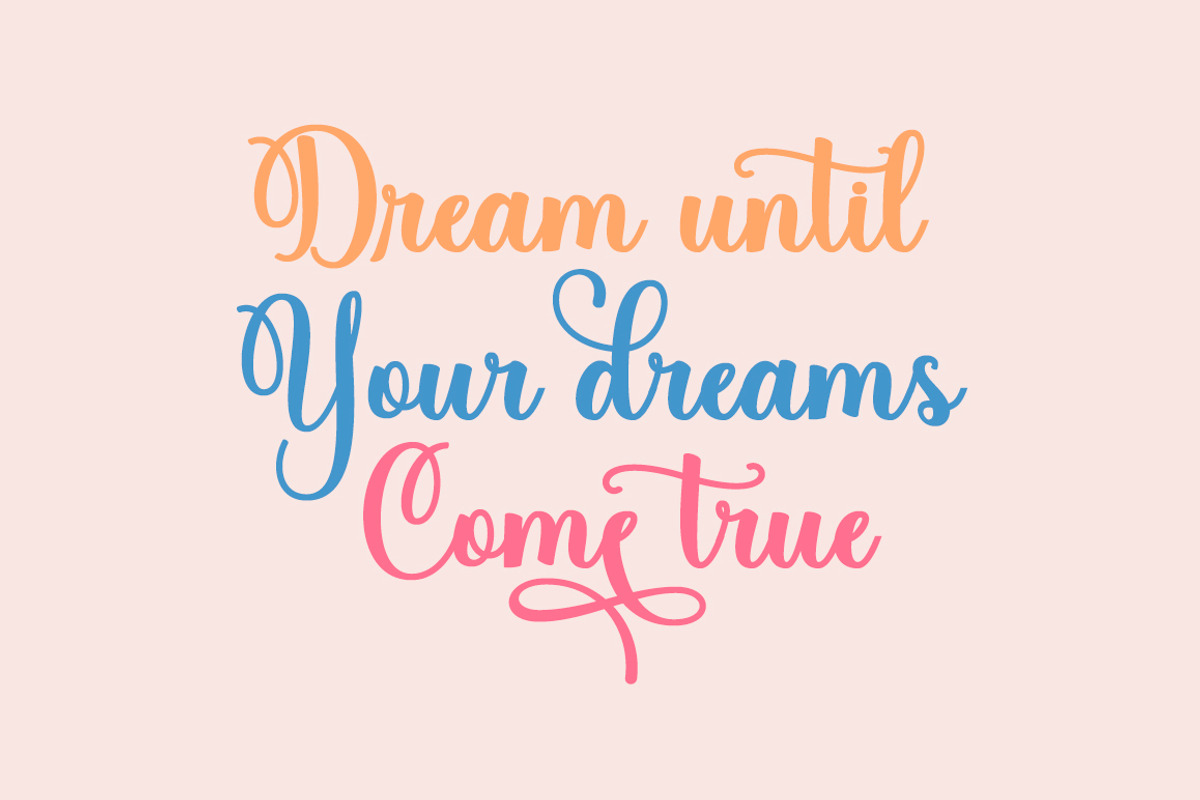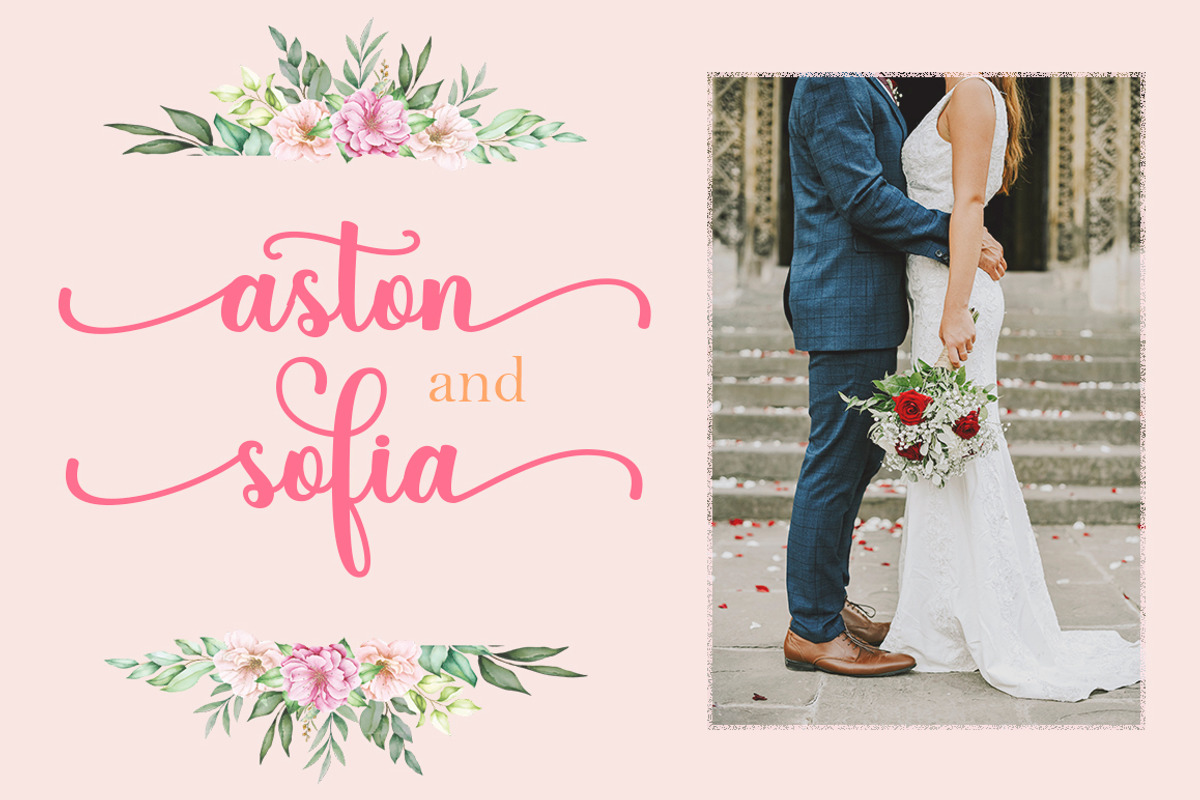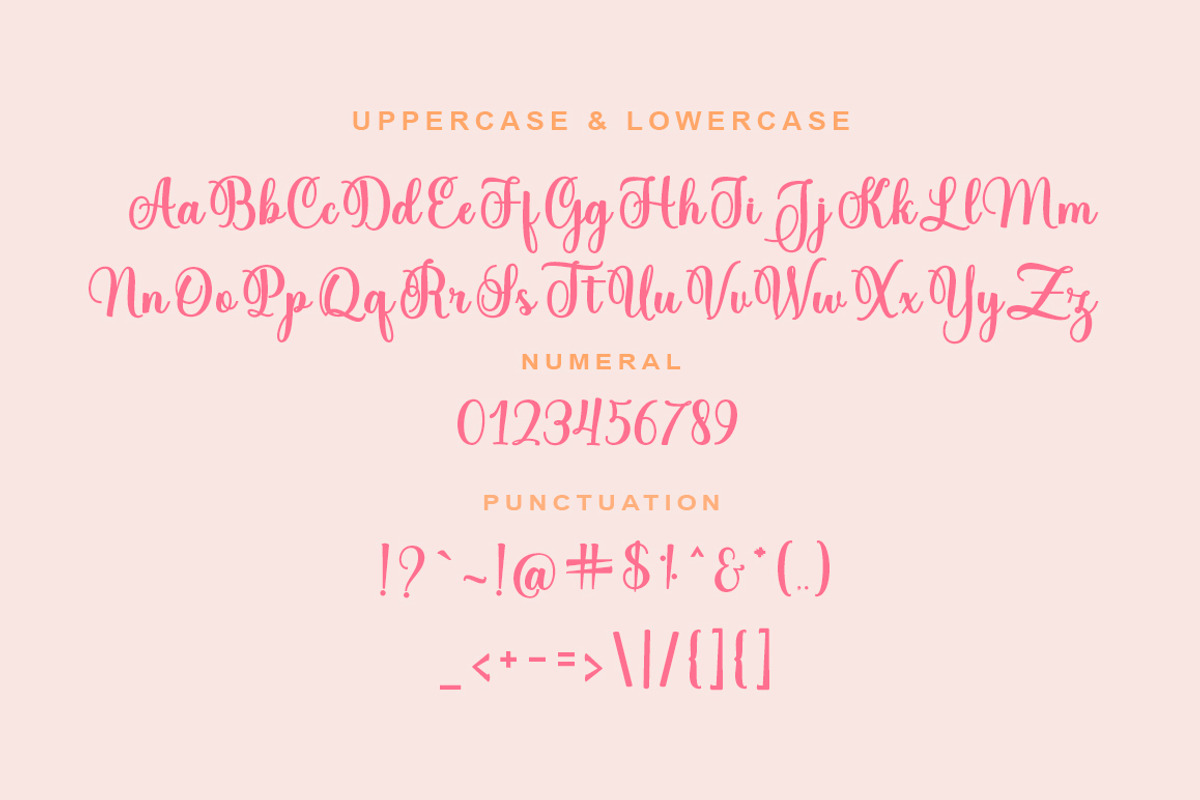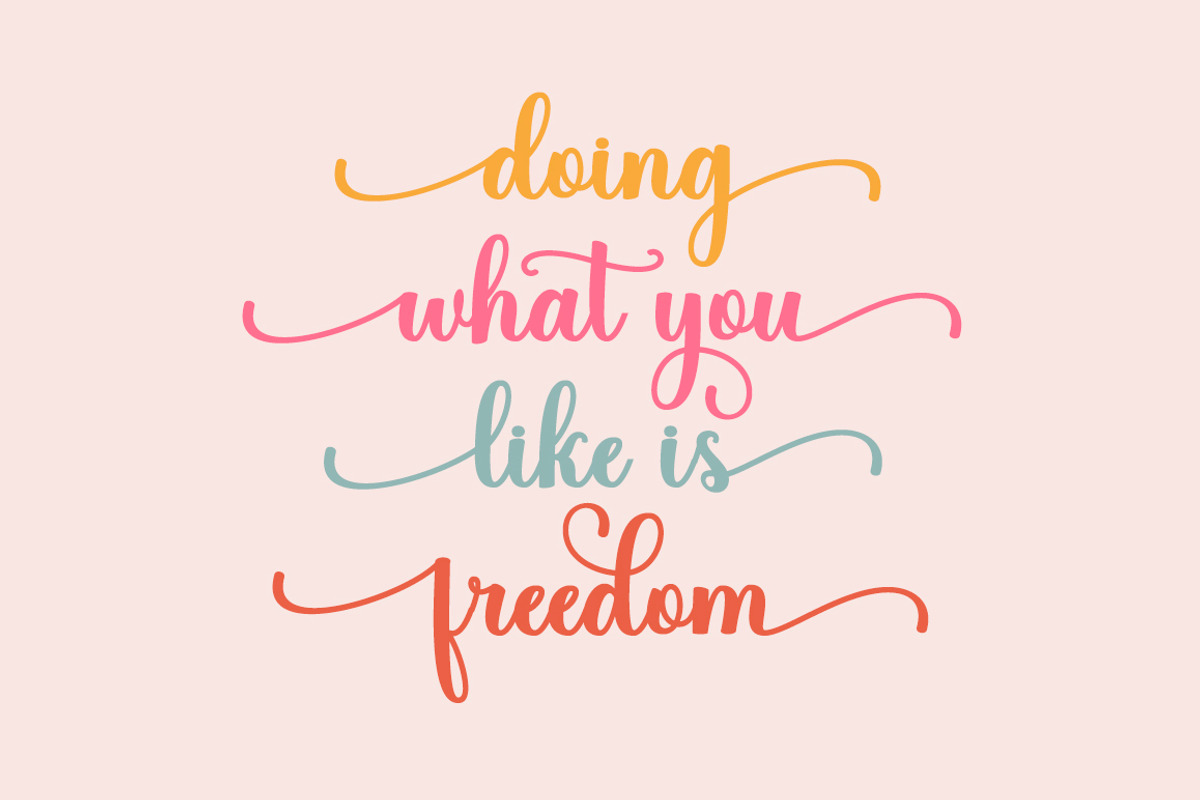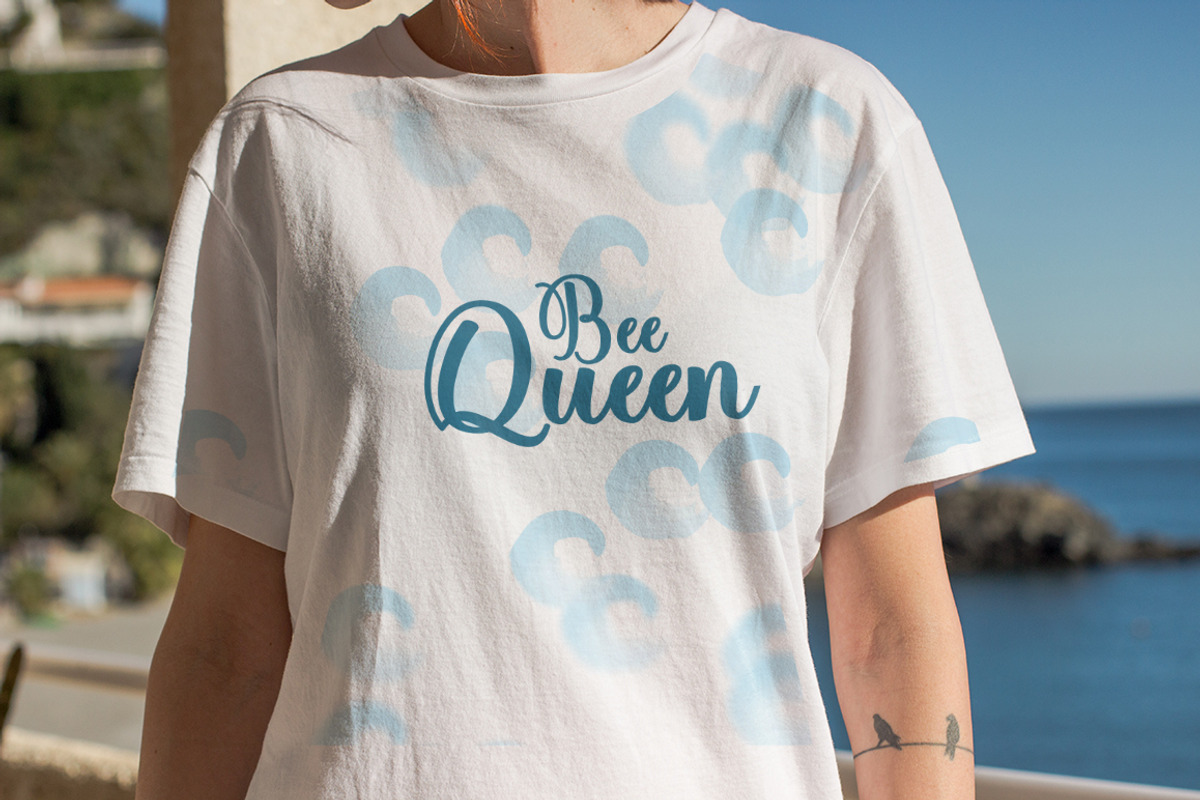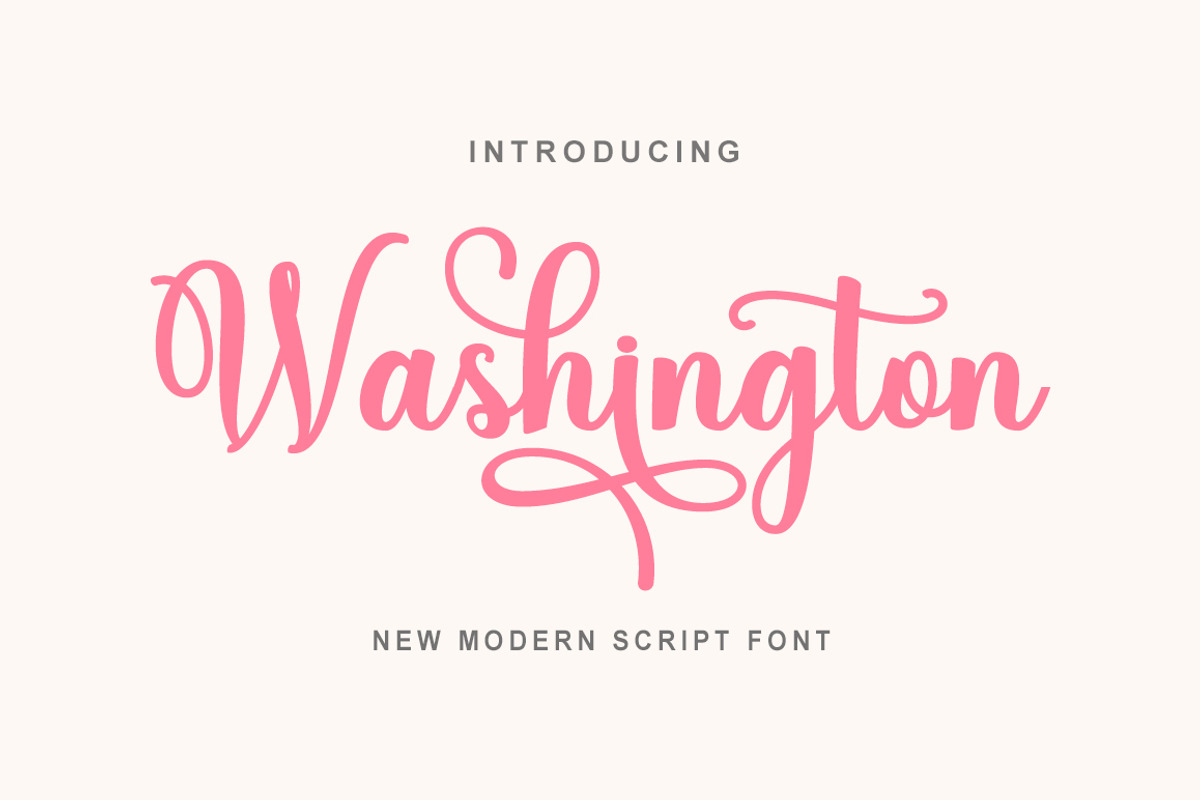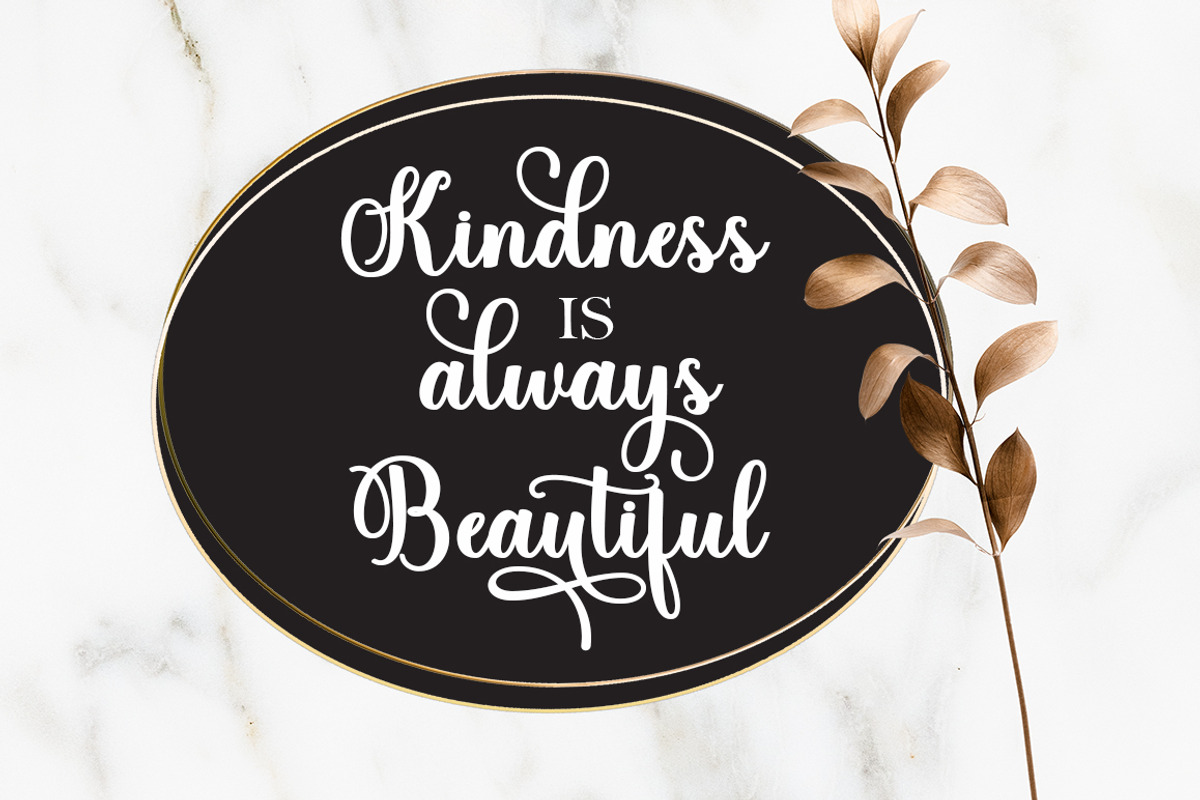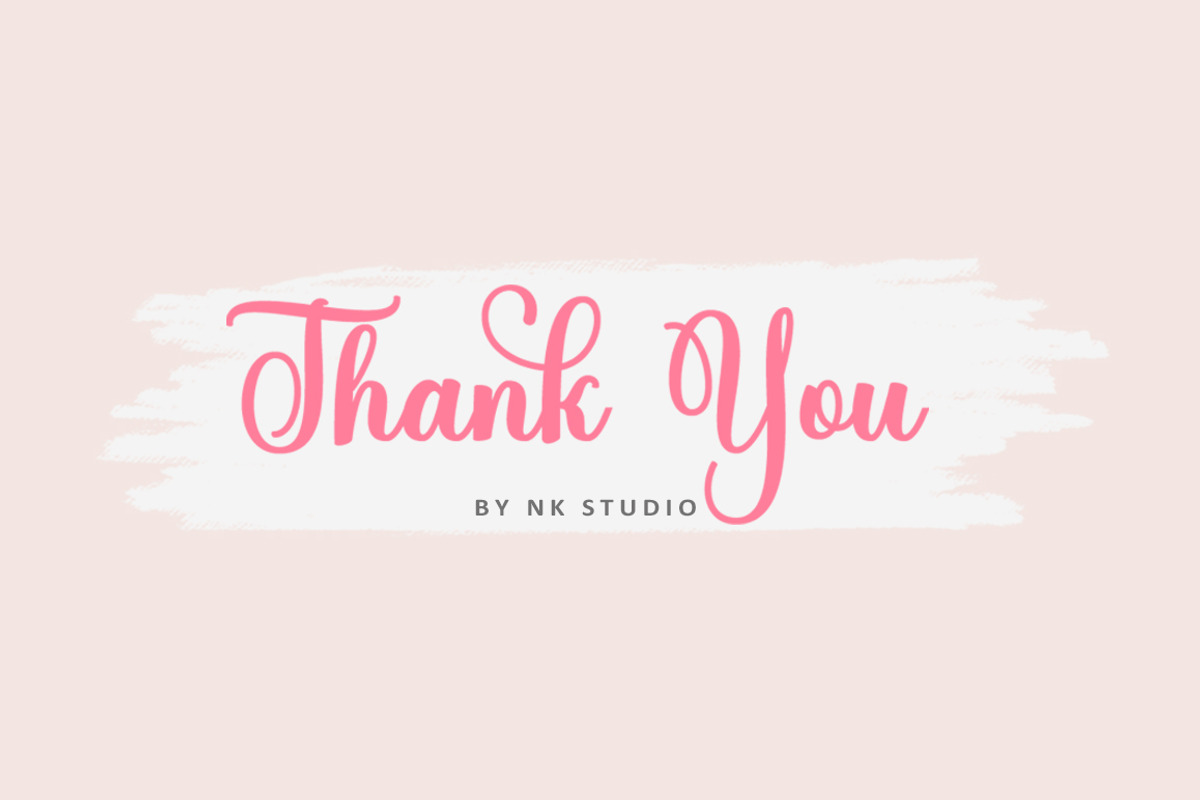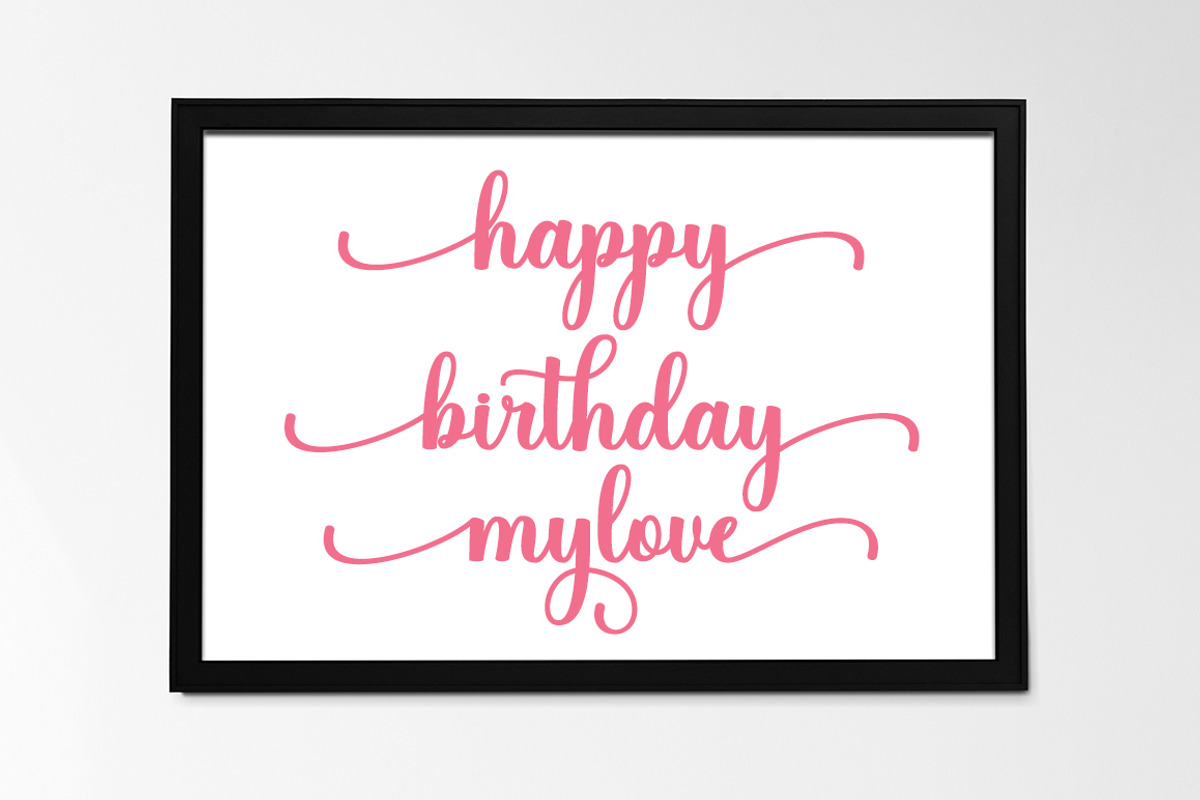
Washington
Washington is a beautiful script font with many alternative styles, natural looking, elegant and perfect for any extraordinary project.
Washington is suitable for various products such as invitations, product packaging, product design, crafts, labels, photography, watermarks, logos & branding.